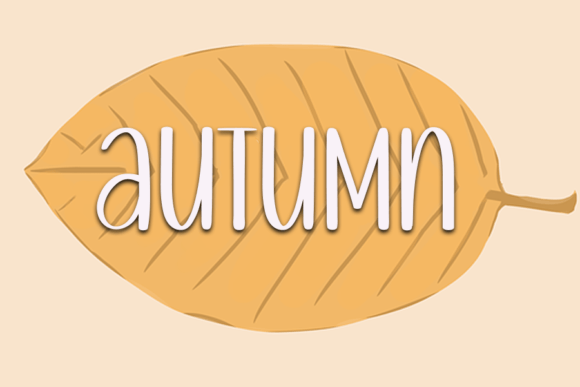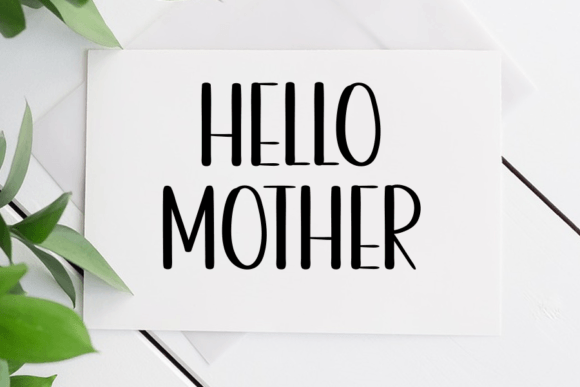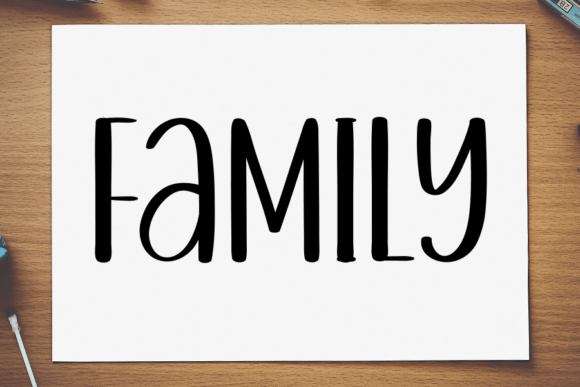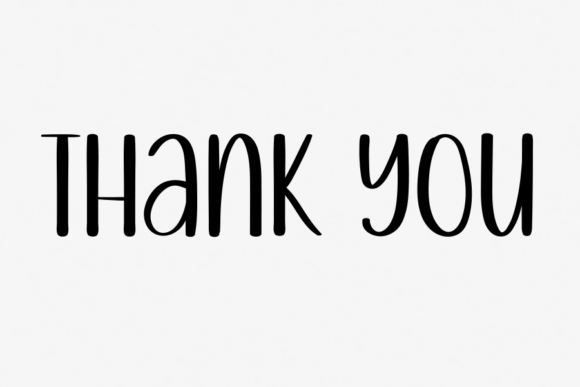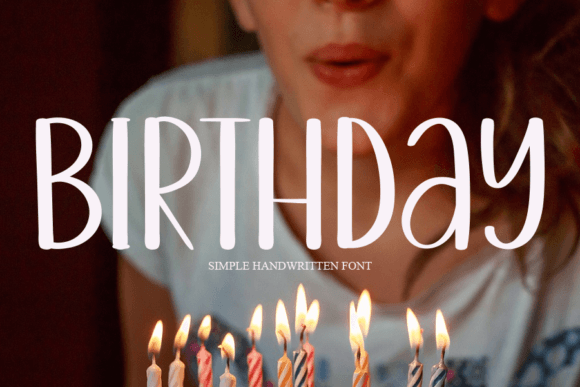
Introducing Birthday Font: The Ultimate Celebration Companion
Are you tired of using the same old fonts for your crafts, digital designs, and greeting cards? Look no further! Meet Birthday Font, a fun and friendly handwritten font that’s sure to become your new favorite. In this article, we’ll dive into the world of Birthday Font, exploring its features, uses, and benefits for designers and crafters alike.
A Font that’s Full of Personality
Birthday Font is a handwritten font that’s bursting with personality. Its playful, cursive strokes and charming letterforms make it perfect for a wide range of projects, from DIY crafts to digital designs. Whether you’re creating a birthday card, a presentation, or a social media graphic, this font is sure to add a touch of whimsy and fun.
One of the best things about Birthday Font is its versatility. This font can be used for a multitude of projects, including:
- Crafts: Use Birthday Font to add a personal touch to your scrapbooking, card making, and other paper crafts.
- Digital Design: Add a playful touch to your social media graphics, presentations, and website designs.
- Greeting Cards: Create custom birthday cards, invitations, and thank-you cards that are sure to impress.
- Presentations: Use Birthday Font to add a fun and engaging element to your presentations, making them more memorable and effective.
Why Choose Birthday Font?
So, what sets Birthday Font apart from other fonts? Here are just a few reasons why designers and crafters love this font:
- Easy to Read: Despite its playful nature, Birthday Font is surprisingly easy to read, making it perfect for both digital and print projects.
- Highly Versatile: As mentioned earlier, Birthday Font can be used for a wide range of projects, from crafts to digital designs.
- Unique and Eye-Catching: This font is sure to grab attention and add a touch of personality to your projects.
- Perfect for Celebrations: Whether you’re creating a birthday card or a holiday gift tag, Birthday Font is the perfect choice for any celebration.
Tips for Using Birthday Font
Now that you’re excited about Birthday Font, here are a few tips for getting the most out of this amazing font:
- Mix and Match: Combine Birthday Font with other fonts to create a unique and eye-catching look.
- Experiment with Colors: Try out different colors and color combinations to add an extra pop of personality to your projects.
- Play with Size: Use Birthday Font in a variety of sizes to create visual interest and add emphasis to your text.